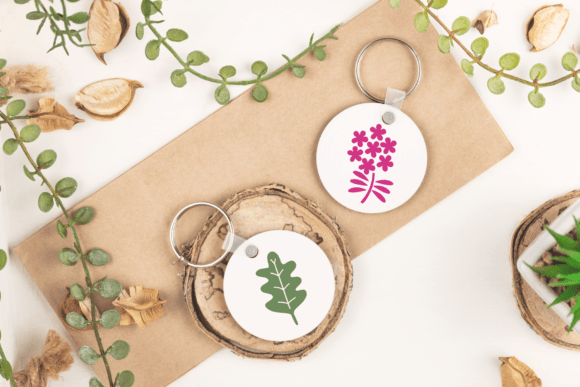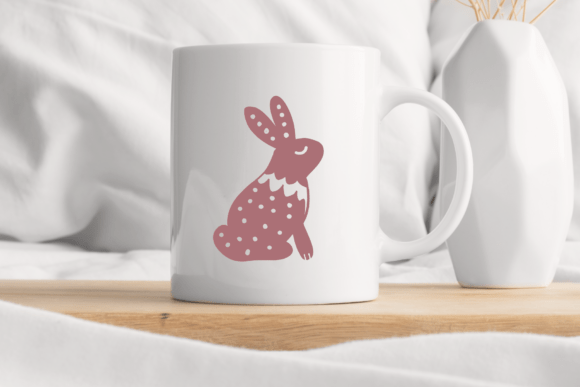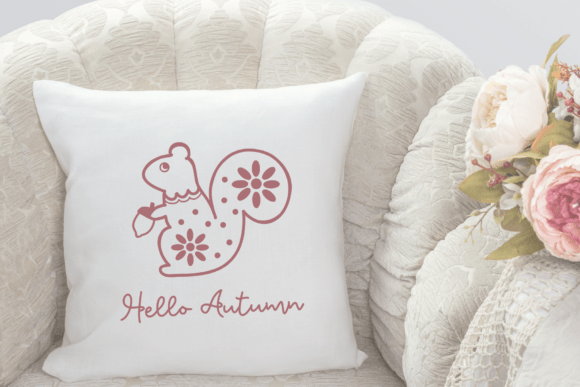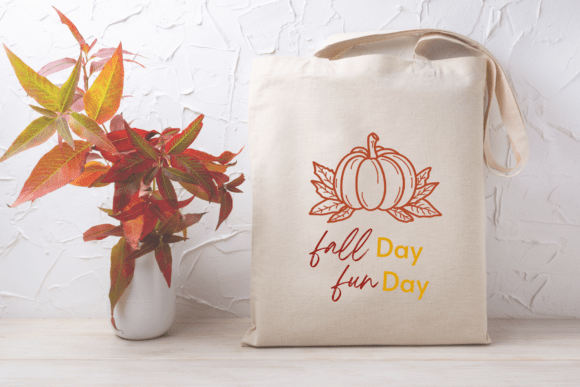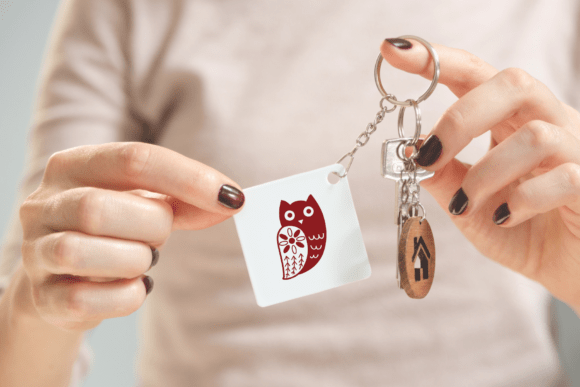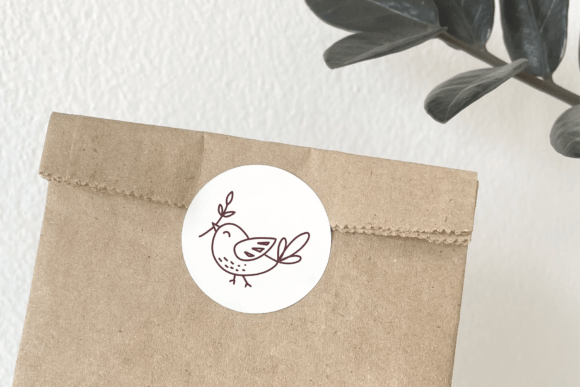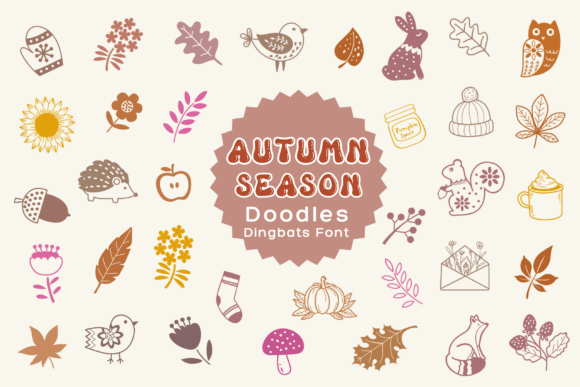
Embracing the Cozy Charm of Autumn with the Perfect Seasonal Font
As the leaves begin to change and the air grows crisp, designers and crafters alike start searching for the perfect elements to infuse their projects with the cozy, whimsical spirit of autumn. One of the most delightful ways to add a seasonal touch to your creations is with the “Autumn Season Doodles” font—a charming dingbat font that brings the magic of fall to life through hand-drawn illustrations.
What is Autumn Season Doodles?
Autumn Season Doodles is a unique font that replaces traditional characters with adorable, hand-drawn doodles that celebrate the essence of autumn. Each glyph in the font is carefully crafted to represent a seasonal icon, ranging from falling leaves and mushrooms to woodland animals, warm drinks, and pumpkins. These illustrations are designed with soft, rounded lines and a playful, imperfect finish, giving them a homemade, illustrated feel that’s perfect for creating a sense of warmth and nostalgia.
Key Features of Autumn Season Doodles
- Hand-drawn illustrations: Every glyph in the font is meticulously drawn to ensure a personal and unique touch.
- Seasonal icons: The font includes a wide variety of autumn-themed icons, such as leaves, mushrooms, acorns, woodland animals, and seasonal treats.
- Playful and imperfect style: The soft, rounded lines and slightly imperfect finish give the doodles a charming, hand-crafted feel.
- Versatile use: Ideal for a range of projects, including seasonal designs, scrapbooking, greeting cards, classroom materials, and cozy craft projects.
Perfect for Seasonal Designs and Craft Projects
Autumn Season Doodles is more than just a font—it’s a creative tool that can transform your designs and craft projects into visually engaging and emotionally resonant pieces. Whether you’re a designer looking to add a personal touch to your client’s autumn-themed campaigns or a crafter seeking to infuse your scrapbooking or DIY projects with seasonal charm, this font is an excellent choice.
Ideas for Using Autumn Season Doodles
- Scrapbooking: Add a touch of autumn magic to your scrapbook pages with doodles of leaves, acorns, and woodland animals.
- Greeting Cards: Create warm and inviting greeting cards for fall-themed occasions, such as Thanksgiving or Halloween, with custom doodles.
- Classroom Materials: Make learning fun with educational materials that incorporate autumn-themed doodles, such as worksheets, posters, and activity sheets.
- Craft Projects: From knitting patterns to pumpkin decorating, add a personal touch to your craft projects with custom illustrations.
Why Choose Autumn Season Doodles?
In a world where digital designs can sometimes feel cold and impersonal, Autumn Season Doodles offers a refreshing alternative. The font’s hand-drawn, whimsical illustrations capture the cozy essence of autumn, making it easy to create projects that feel warm, inviting, and personal. Moreover, the versatility of the font ensures that it can be used across a variety of projects and applications, making it a valuable addition to any designer’s or crafter’s toolkit.
Getting Started with Autumn Season Doodles
Tips for Maximizing the Impact of Autumn Season Doodles
- Mix and match doodles: Combine different doodles to create unique and complex illustrations.
- Experiment with color: While the doodles are charming in their original form, don’t be afraid to experiment with different colors and textures to match your project’s theme.
- Pair with complementary fonts: Use Autumn Season Doodles alongside other fonts that complement its playful, whimsical style to add depth and interest to your designs.
As autumn arrives with its palette of golds, oranges, and reds, it’s the perfect time to infuse your designs and craft projects with the season’s cozy charm. With Autumn Season Doodles, you have a delightful dingbat font at your fingertips, ready to bring the whimsical spirit of fall to life in a way that’s both engaging and endearing. Whether you’re a professional designer or a hobbyist crafter, this charming font is sure to inspire your creativity and add a personal touch to all your autumn-themed creations.